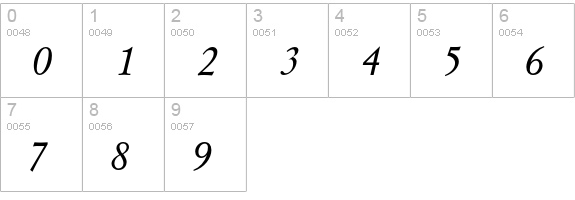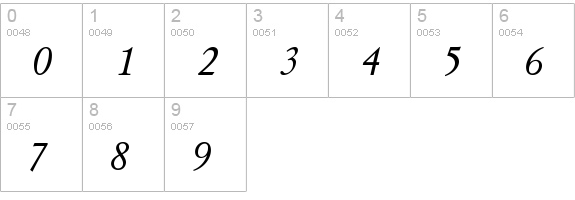
PM Mysl Italic Cyrillic Font Details
PM Mysl Italic Cyrillic is a distinctive, italic variant in the PM typeface family \xE2\x80\x94 well suited to design and typography projects.
Introducing PM Mysl Italic Cyrillic font - a stunning typeface designed to elevate your projects with a touch of elegance and sophistication. This beautifully crafted font features delicate curves and flowing lines, making it perfect for adding a touch of style to any design. Whether you're working on a branding project, a website, or a print design, PM Mysl Italic Cyrillic font is sure to make a statement. Best of all, PM Mysl Italic Cyrillic font is completely free to download at FontsMarket.com. With just a few clicks, you can add this gorgeous font to your collection and start using it in your projects right away. Don't miss out on this fantastic opportunity to enhance your designs with PM Mysl Italic Cyrillic font - download it today and let your creativity soar.